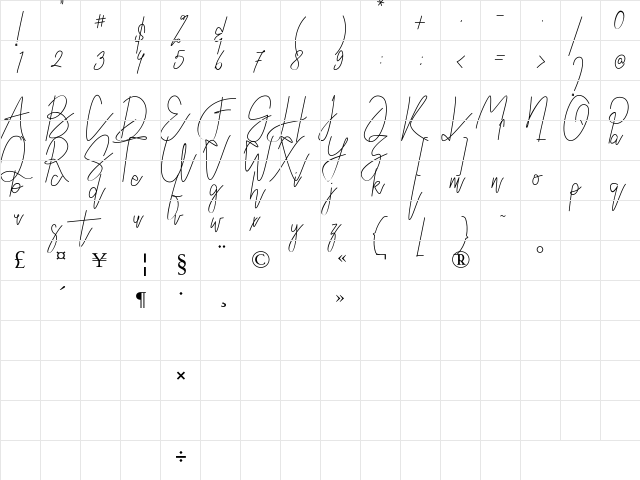
Austin Worth Regular
Design Context for Austin Worth Typeface
Austin Worth is a composed and adaptable typeface that performs quietly and consistently across a wide range of design contexts.